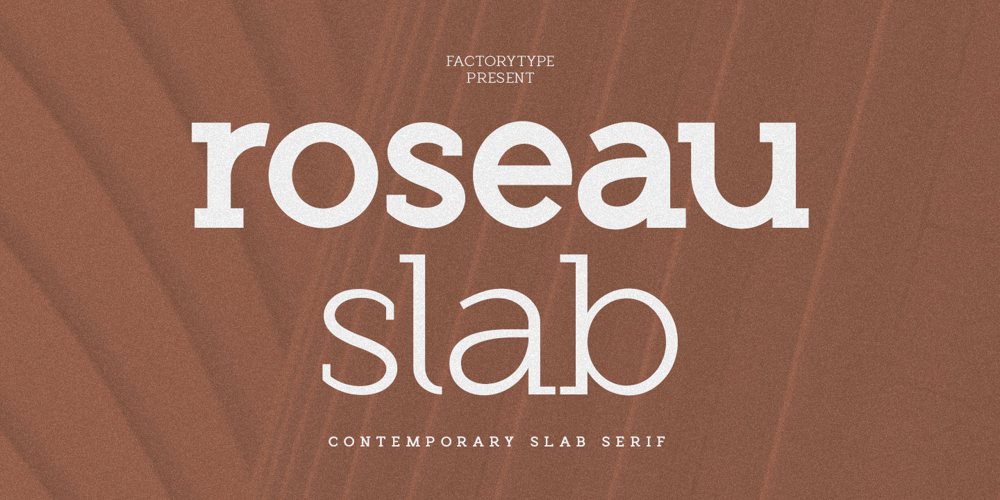
Roseau Slab
Roseau Slab font
Roseau Slab Font Family was designed by Wahyu Rahmawan and published by Factory738. Roseau Slab contains 10 styles and family package options. Roseau Slab is a slab-serif font family that is both modern and minimalist. The various weights provide a variety of options for determining the best typographic color for your project. This is an unrivaled sans serif for differentiating your headlines, branding visual identity, poster, logo, magazines, and so on. 5 Weights (Light, Regular, Semibold, Bold, Black) Basic Latin A-Z and a-z Numbers Punctuation Ligatures Multilingual Support for ä ö ü Ä Ö Ü … Free updates and feature additions Thanks for looking, and I hope you enjoy it.